Font Typesetting Function 16: “Tabular Figures and Proportional Figures (tnum/pnum)”
When we talk about the figures included in fonts, the terms: “proportional” or “tabular” tend to be slightly complicated.
Apart from the default figures “0123456789,” full-width figures “0123456789” are included in general Japanese fonts. On the other hand, proportional figures and tabular figures are frequently included in Latin fonts.
The default figures in Japanese fonts may be called “proportional figures” (to distinguish them from full-width figures). However, the default figures in Japanese fonts are often tabular figures in accordance with terminology used for Latin fonts in most cases. Therefore, all character widths, from 0 to 9, are designed in the same way (so as to be arranged vertically when set in tabular composition).
For that reason, to avoid confusion, with the use of the feature tags in the OpenType fonts, tabular figures in the terminology of Latin fonts are written as tnum, and proportional figures are written as pnum.
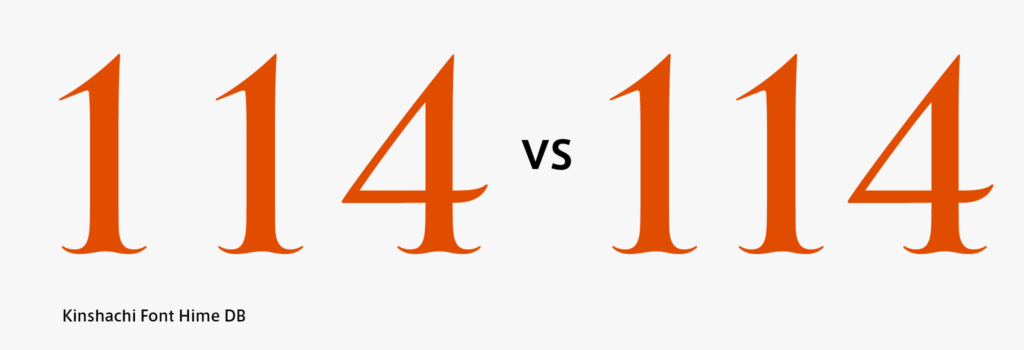
The figure shows Kinsachi Font Hime. The default figures (tnum) are on the left, and proportional figures (pnum) are on the right. Japanese fonts do not include pnum in many cases, but Kishachi Font Hime has both tnum and pnum.